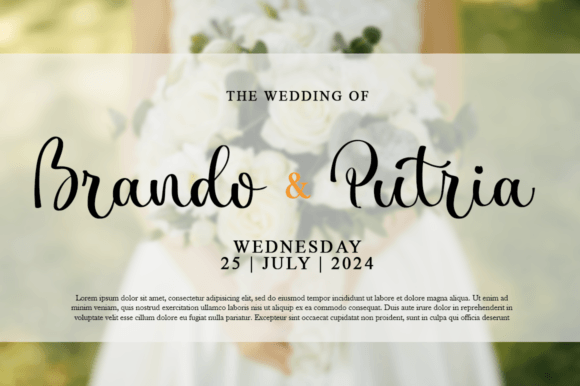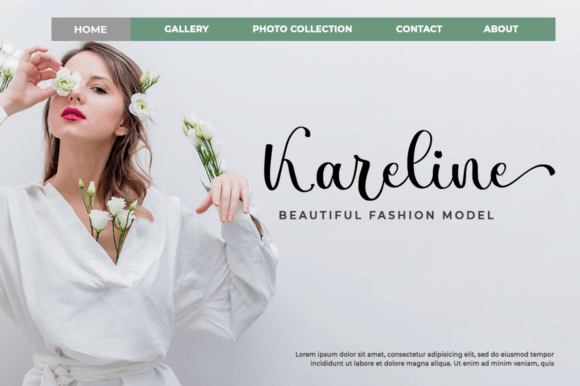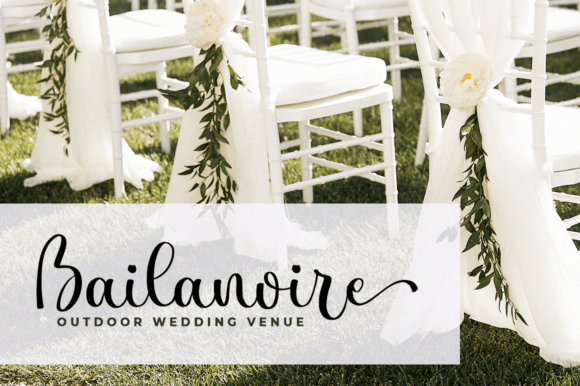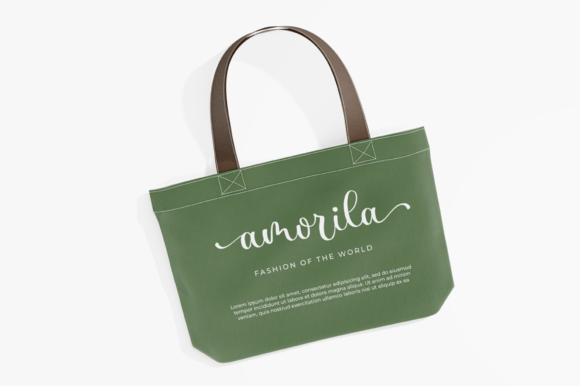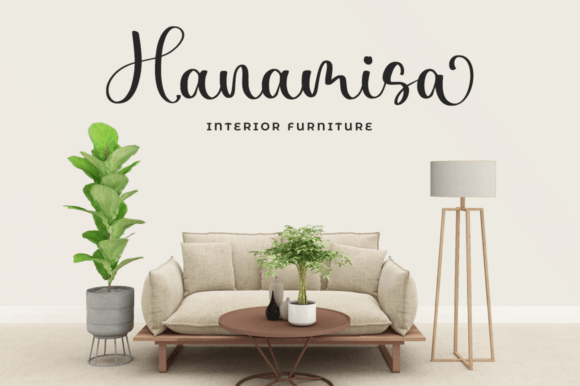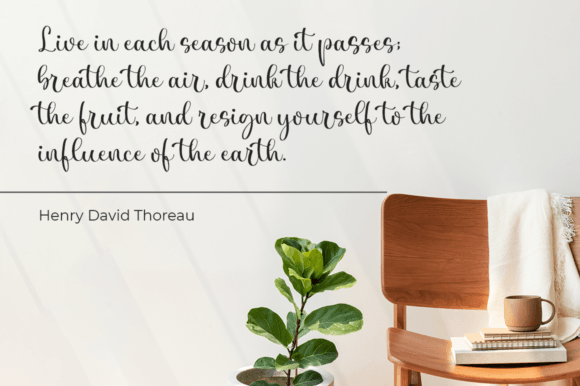
Introduction to Paradisa Font
There’s nothing quite like the feeling of finding the perfect font for your next creative project. It’s like stumbling upon a hidden treasure that elevates your entire design to the next level. And for designers looking for that special something, we’re excited to introduce the Paradisa Font – a romantic and sweet calligraphy typeface that’s sure to add a touch of luxury to any project.
Imagine a font that not only looks beautiful but also adds a sense of whimsy and playfulness to your designs. With its characters dancing along the baseline, the Paradisa Font is a game-changer for designers looking for a high-quality design resource that can take their creative projects to new heights. Whether you’re working on a logo, a brochure, or a website, this font is sure to impress.
Key Features of Paradisa Font
- Designed with a unique, elegant aesthetic making it perfect for modern designs
Honest Review: Paradisa Font
I recently stumbled upon the Paradisa Font and was immediately drawn to its unique design. This font is perfect for any creative project that requires a high-quality, elegant look.
- What works well: ✨ The Paradisa Font offers a wide range of styles, from casual to formal, making it a versatile design resource for various projects. It also includes a transparent background, which makes it easy to use in any design scenario.
- What works well: ✨ The font is highly customizable, allowing designers to adjust the size, color, and style to fit their specific needs.
However, I did encounter some limitations with the Paradisa Font. ⚠️ The font may not be suitable for projects that require a bold or playful look, as it tends to lean towards a more elegant and sophisticated style.
Overall, I’m impressed with the Paradisa Font. It’s a high-quality design resource that’s perfect for designers looking to add a touch of elegance to their creative projects. The transparent background and wide range of styles make it a versatile tool for any design scenario.
Tips for Getting the Most Out of Paradisa Font
For a transparent background, use the Paradisa Font on a design element with a transparent background to create a stunning visual effect. To ensure high-quality output, use the font at a suitable size and resolution for your design project.
The Paradisa Font is ideal for creative projects that require a elegant and sophisticated look, such as wedding invitations, business cards, and branding materials. Its high-quality design makes it a popular choice among designers and artists.